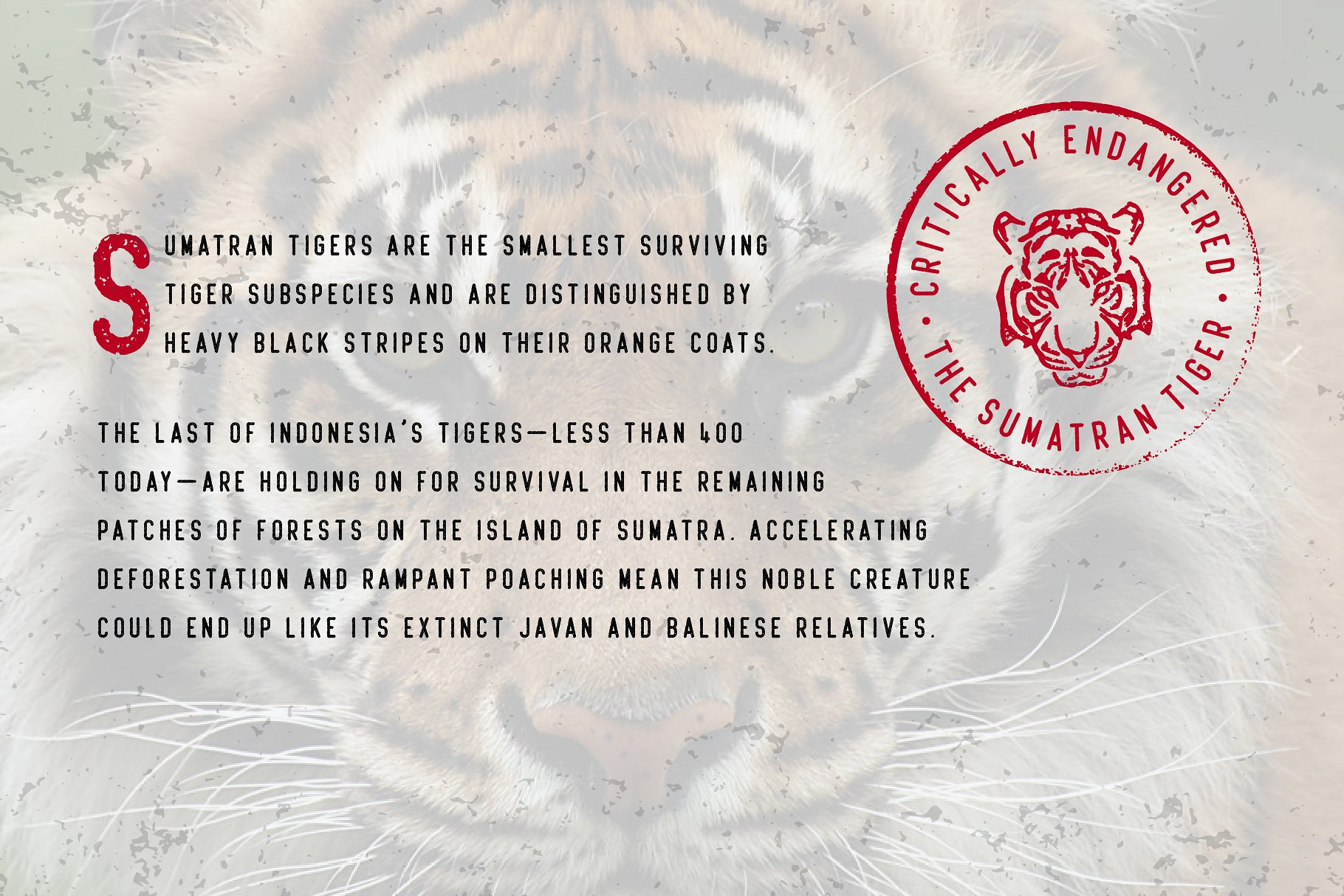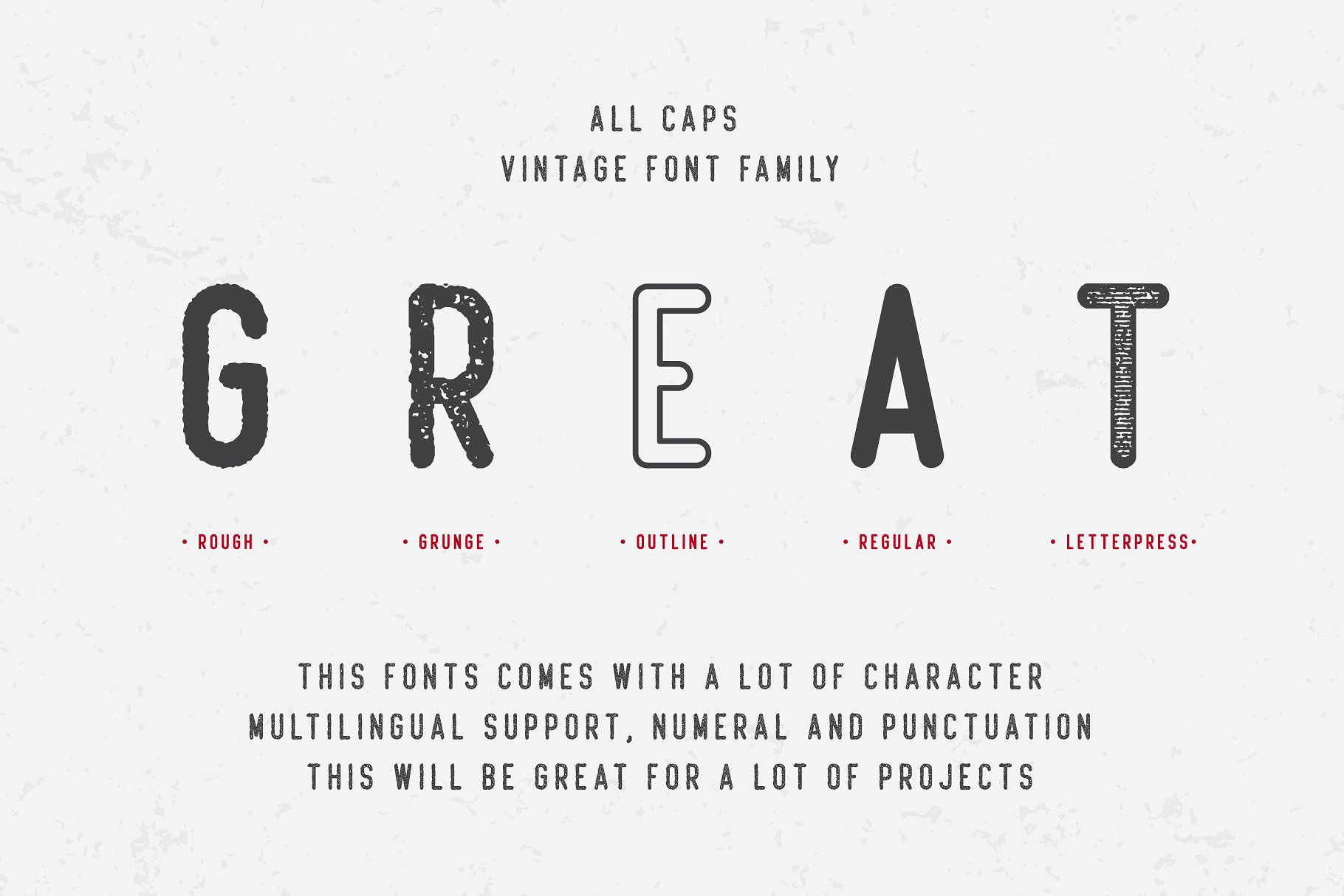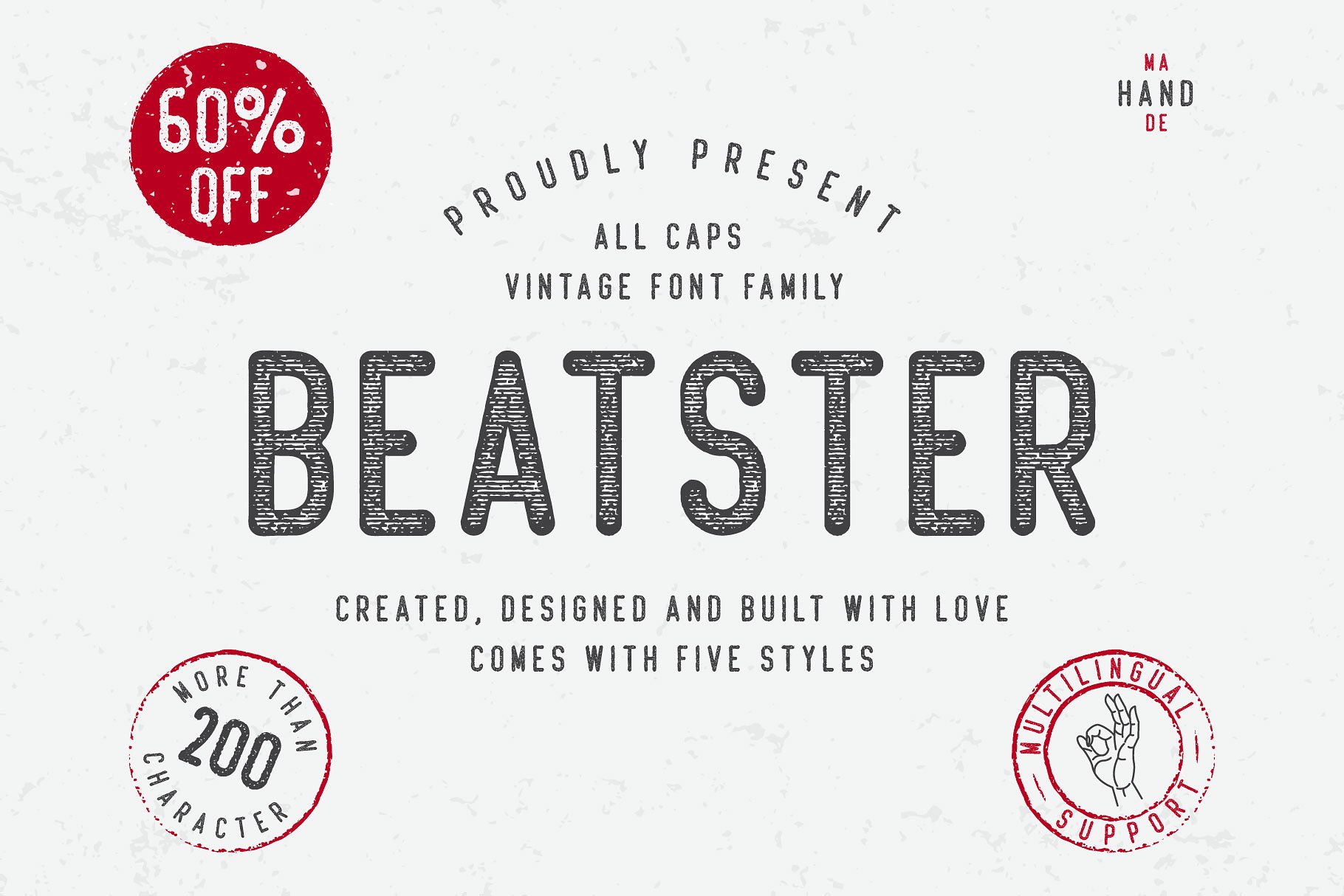
Beatster Typeface
This is handmade modern vintage textured display typefaces. Introducing Beatster Typeface. It is design and shared by MuSan. Inspired by classic western culture. There’s so many fonts that would be perfect to combine in your design, especially on vintage design. With bonus illustration in this package, this fonts are great for logotype, badges, clothing, poster, and much more.